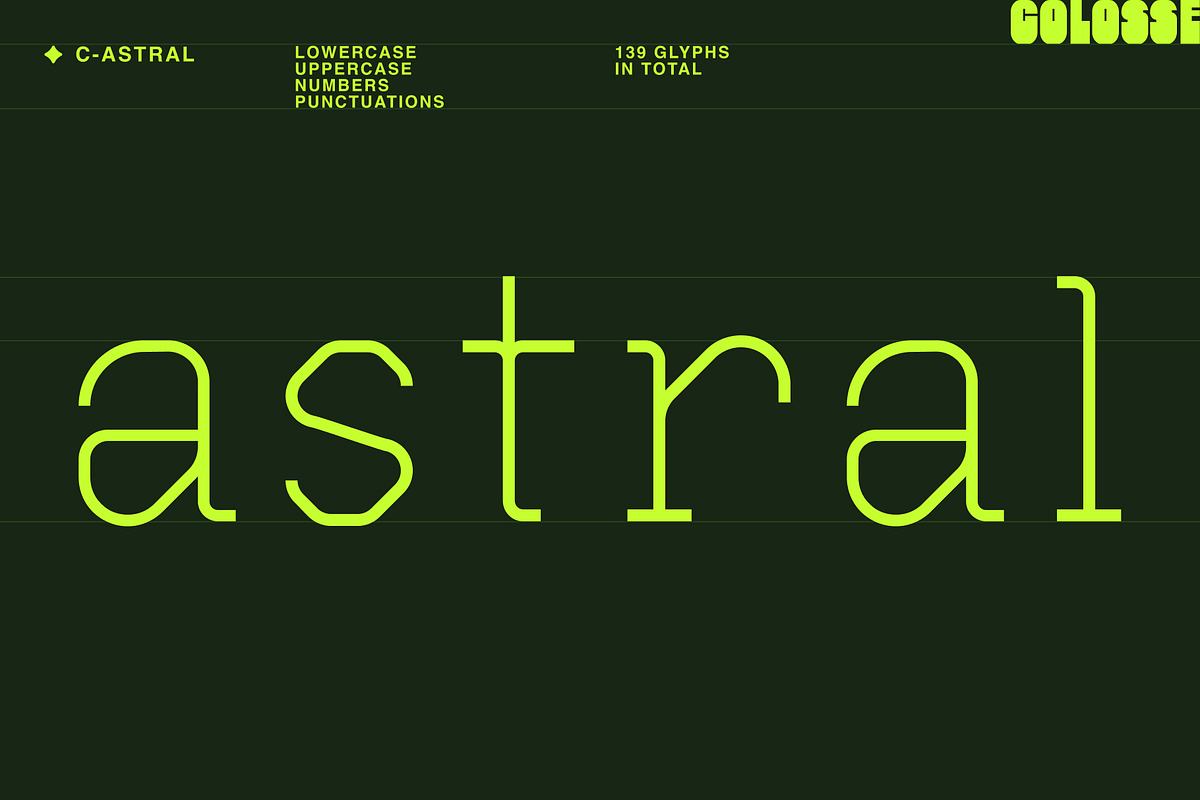
C-Astral Display Typeface Free Download is a futuristic and geometric typeface designed for bold, high-tech, and cutting-edge visuals. Perfect for sci-fi posters, tech startups, drone branding, video game titles, and modern digital interfaces, this display font brings a sleek, experimental aesthetic to your work.
With sharp angles, clean lines, and a minimalist design, C-Astral feels both innovative and impactful. It's crafted to stand out in large sizes and delivers a strong presence in headers, logos, and branding elements that require a forward-thinking look.
The typeface includes uppercase letters, numerals, punctuation, and basic multilingual support. It's optimized for both screen and print use, making it a versatile choice for digital creatives and futuristic-themed projects.